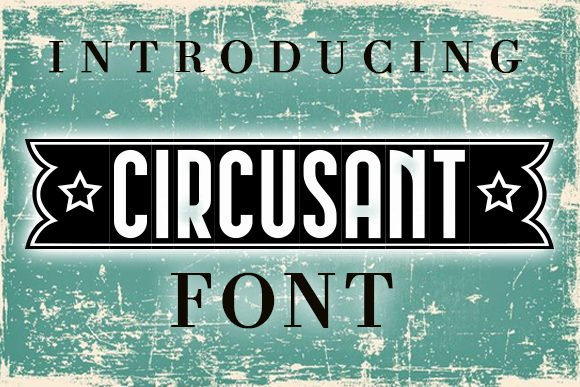
The Perfect Blend of Vintage Charm and Modern Flair
Have you ever been in the middle of a creative project, pouring your heart and soul into a design, and suddenly, the perfect font comes to mind? For designers, finding that elusive combination of style and functionality can be the key to unlocking a truly captivating piece of work. For me, that moment came when I stumbled upon the enchanting Circusant Font.
This stunning retro font offers a wealth of creative possibilities, from elegant headings to whimsical body text. With its unique blend of vintage charm and modern flair, Circusant Font is the perfect addition to any design project. Whether you’re a seasoned pro or just starting out, this versatile font is sure to bring a touch of magic to your work.
So, what makes Circusant Font so valuable to designers? Its adaptability, for one. Whether you’re working on a high-end brand identity or a playful illustration, this font’s range of styles and moods makes it the perfect choice.
Circusant Font Key Features
- Font Family: Circusant Font is a modern sans-serif font family designed for digital use.
- Character Set: The font family includes a wide range of characters, including Latin, Cyrillic, and Greek scripts.
- Unique Characteristics: Circusant Font features a distinctive rounded corner design with a subtle flair, making it suitable for titles and headings.
Circusant Font Review
I recently had the chance to work with the Circusant Font, and I must say it’s a unique and eye-catching addition to any design project. ✨ One of the things I love about this font is its versatility – it can be used for a wide range of applications, from advertising and marketing materials to digital products and websites.
- ✨ High level of customization: Circusant Font offers a wide range of weights and styles, making it easy to adjust to suit your design needs.
- ✨ Unique aesthetic: The font’s playful, hand-drawn feel adds a touch of whimsy to any design project.
- ✨ Strong typography: The font’s clean lines and well-defined shapes make it easy to read and understand.
However, there are a few limitations to consider. ⚠️ The font can be a bit too ornate for some projects, and it may not be the best choice for documents or materials that require a more serious tone.
Overall, I think the Circusant Font is a great addition to any designer’s toolkit. Its unique aesthetic and high level of customization make it a versatile and effective choice for a wide range of design projects. With a little care and consideration, it can add a touch of personality and whimsy to even the most mundane designs.
Getting the Most Out of Circusant Font
To get the most out of Circusant Font, use it for titles, headings, and emphasis. This font is ideal for creating a playful and whimsical atmosphere, making it perfect for children’s books, party invitations, and other creative projects.
Circusant Font is commonly used for:
- Children’s book titles and headings
- Playful advertising and marketing materials